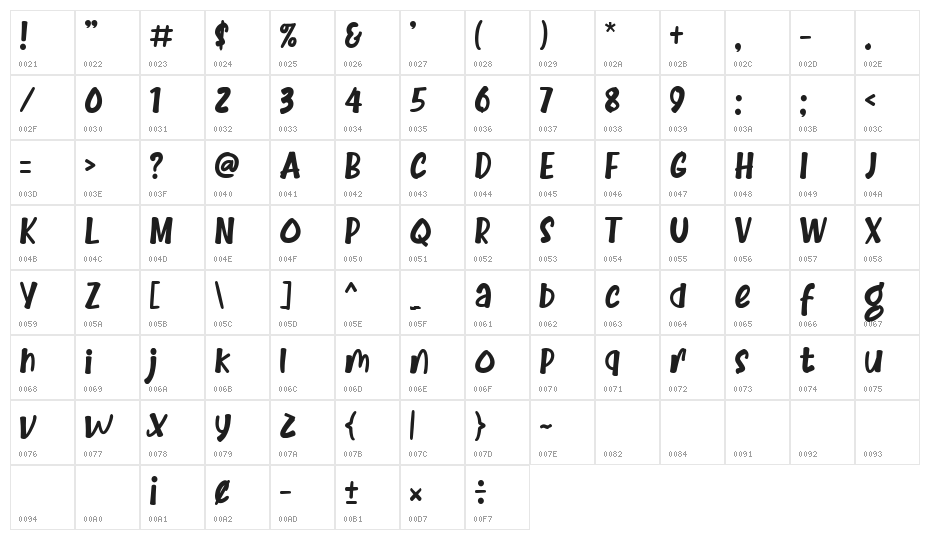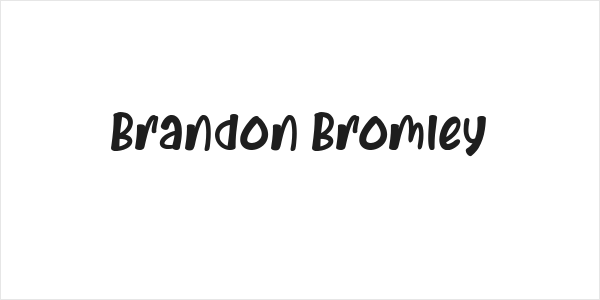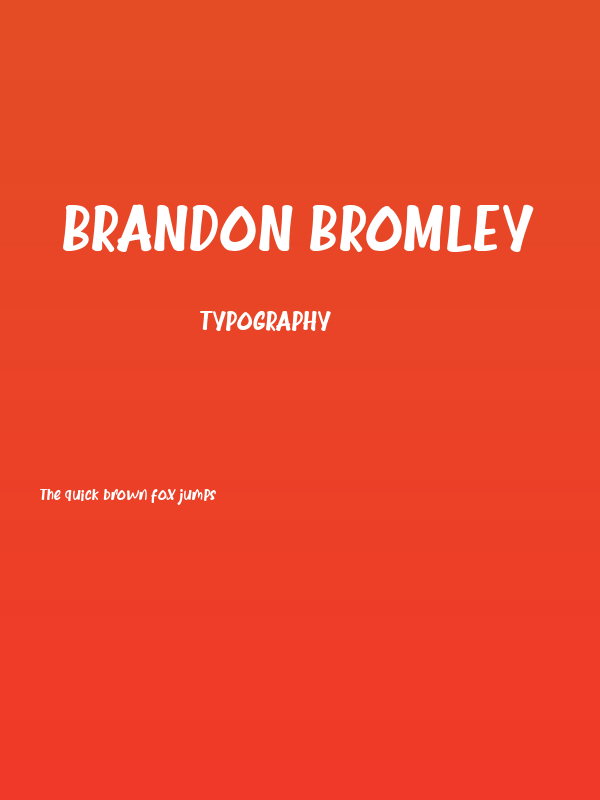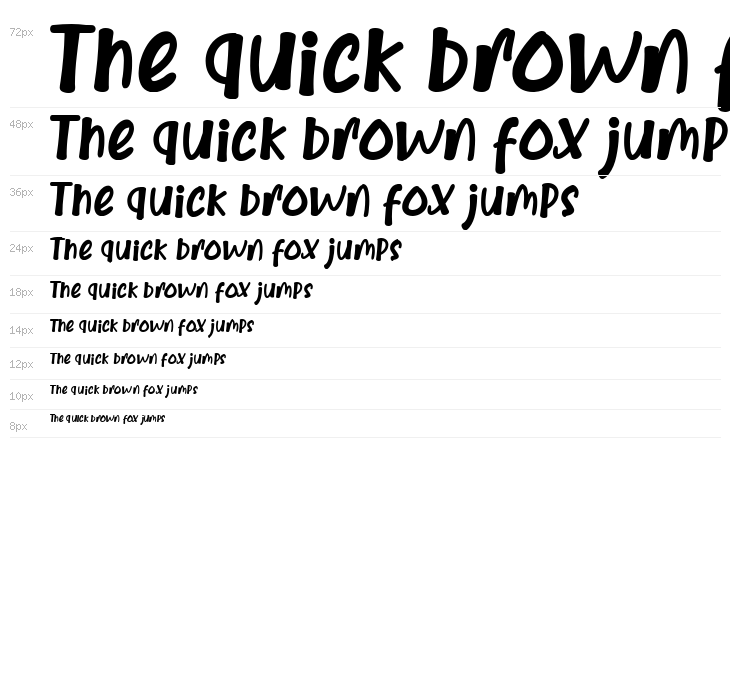
Brandon Bromley Font
Brandon Bromley Description
This font features a playful and bold handwritten style, characterized by its thick strokes and slightly irregular shapes that give it a casual and friendly appearance. The uppercase and lowercase letters maintain a consistent flow, with rounded edges and a slight slant that adds to its informal charm. The numerals and special characters are equally bold, ensuring readability and a cohesive look across all text. This font's unique style makes it stand out, offering a lively and energetic feel suitable for various creative applications.
Overall StylePlayful
Proposed ProjectsIdeal for greeting cards, children's books, playful branding, and social media graphics.